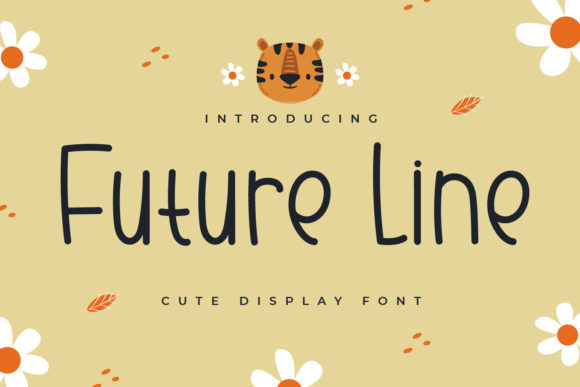
Introducing Future Line Font: A Whimsical Handwritten Gem for Your Creative Endeavors!
Journey into the enchanting world of Future Line Font, a captivating creation by OKEVECTOR, designed to ignite your imagination and add a touch of whimsy to your creative projects. This script font exudes a delightful thinness, a dash of cuteness, and an undeniable friendliness that will leave you utterly smitten.
Whether you're a seasoned designer or just starting your creative journey, Future Line Font is your perfect companion. Its versatility knows no bounds, effortlessly adapting to a myriad of design styles and themes. Unleash your creativity and let this font elevate your designs, transforming them into masterpieces of visual appeal.
Picture this: Your latest cartoon-inspired creation comes to life with the playful charm of Future Line Font, captivating your audience with its endearing strokes and curves. Or, imagine your children's game adorned with this enchanting font, creating a magical experience that transports players to a world of wonder and imagination.
Quotes, titles, and brand names take on a life of their own when adorned with Future Line Font. Its elegant simplicity adds a touch of sophistication, while its playful nature ensures that your message stands out from the crowd. And when it comes to book covers and posters, this font weaves a spellbinding aura, drawing readers and viewers into your creations.
With Future Line Font, the possibilities are endless. Its versatility extends to any project that calls for a touch of beauty and charm. Whether you're designing invitations, greeting cards, social media posts, or simply expressing your creativity, this font will add a touch of magic to your work.
So, embark on this creative adventure with Future Line Font as your trusted companion. Let your imagination soar, explore new horizons, and create designs that ignite joy, spark conversation, and leave an everlasting impression. The world of creativity awaits your arrival – embrace it with Future Line Font by your side!